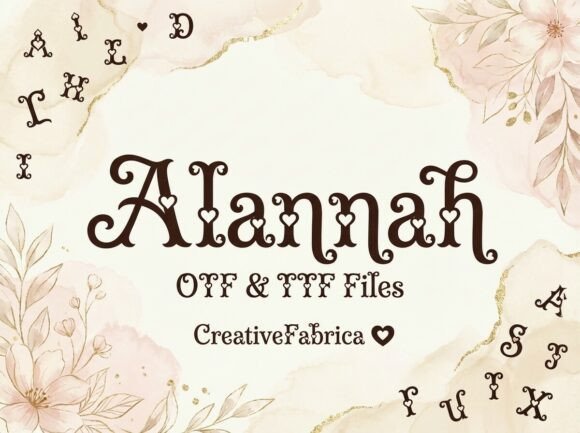
The Font that Stole My Heart: Alannah
I still remember the design project that led me to fall in love with the Alannah font. I was working on a wedding stationery set for a client, and I was struggling to find the perfect font that would capture the romantic essence of the occasion. The client wanted something elegant, yet playful, and I was determined to deliver. That’s when I stumbled upon Alannah, a beautiful display font that features elegant, calligraphic curves accented by delicate heart-shaped cutouts and flourishes nestled within the letterforms. It was love at first sight! 💕
An Honest Review of Alannah
- ✨ Elegant and romantic design, perfect for wedding stationery, Valentine’s Day branding, and sentimental book covers
- ✅ Delicate heart-shaped cutouts and flourishes add a touch of whimsy and playfulness
- ✨ Classic elegance with a modern twist, making it suitable for a wide range of design projects
- ✅ Easy to read and works well in large and small sizes
- ⚠️ Some letters may require manual kerning for optimal spacing
- 🤔 Limited use in body text due to its decorative nature
A Practical Guide to Using Alannah
The Story Behind Alannah
Alannah was designed by a talented type designer who wanted to create a font that would capture the essence of love and romance. Inspired by traditional calligraphy and elegant script fonts, Alannah features delicate heart-shaped cutouts and flourishes that add a touch of whimsy and playfulness to any design. The font was designed to be versatile and easy to use, making it perfect for a wide range of design projects, from wedding stationery to sentimental book covers.
Q: What is the best way to use Alannah in my design project?
A: Alannah is a versatile font that can be used in a variety of design projects, from wedding stationery to sentimental book covers. Use it as a display font to add a touch of elegance and romance to your design.
Q: Is Alannah suitable for body text?
A: While Alannah is a beautiful font, it’s primarily designed for display use. It’s not recommended for body text due to its decorative nature.